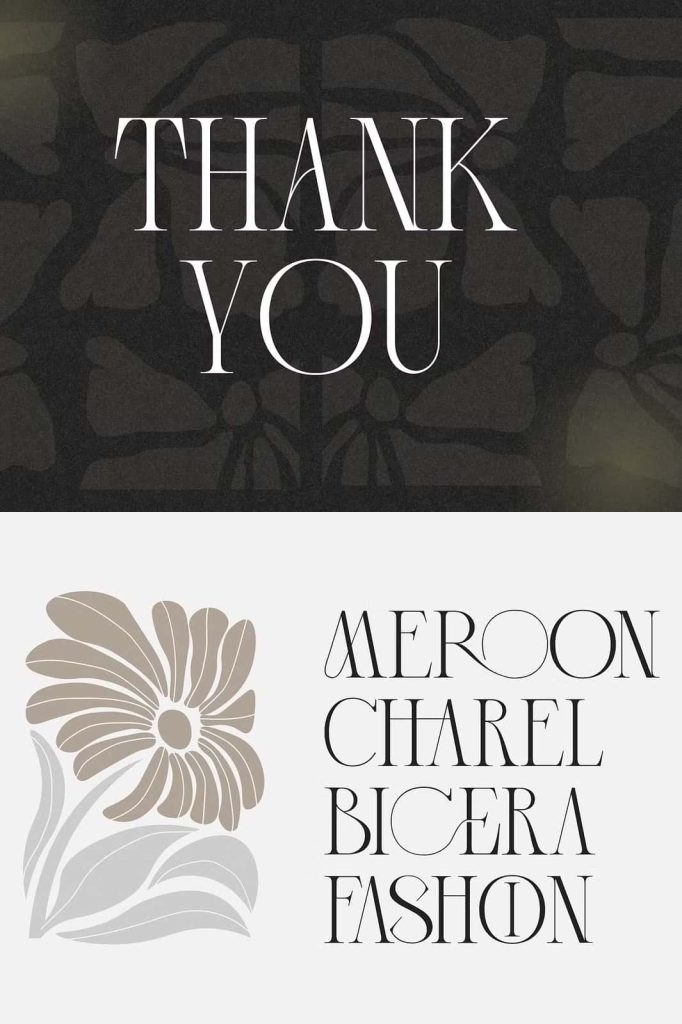
Roabla Font for Harmonious and Versatile Design Projects
Roabla is a thoughtfully crafted typeface designed to deliver beautiful typographic harmony across a wide range of creative applications. With its balanced structure and refined letterforms, Roabla allows designers to create cohesive and visually appealing compositions. Whether you work on branding, digital content, or product design, this font provides the flexibility and clarity needed to produce professional results.
Designed for Typographic Harmony
Roabla stands out because of its ability to create harmony within your designs. Every letter is carefully shaped to maintain consistent proportions, spacing, and flow. This attention to detail ensures that your typography feels balanced and unified, even in complex layouts.
The font’s harmonious design helps you build strong visual structures. It allows text elements to work together naturally, making your compositions easier to read and more aesthetically pleasing.
Balanced and Refined Letterforms
The letterforms in Roabla combine clarity with subtle elegance. Each character features clean lines and well-considered spacing, resulting in a polished and professional appearance. This balance makes the font suitable for both bold headlines and supporting text.
Designers can rely on Roabla to maintain consistency across different design elements, ensuring that every piece of text contributes to a cohesive overall look.
Perfect for Logos and Branding
Roabla provides a strong foundation for logo design and brand identity. Its harmonious structure allows you to create logos that feel stable, modern, and visually appealing. The font communicates professionalism while still offering enough character to make your brand stand out.
You can use Roabla to develop a consistent brand voice across multiple platforms. Its versatility ensures that your identity remains recognizable and effective in different contexts.
Build a Consistent Visual Identity
Consistency is key in branding, and Roabla helps you achieve it effortlessly. Its balanced design works well across logos, packaging, and marketing materials, allowing you to maintain a unified look. This makes it an excellent choice for businesses that want to establish a strong and reliable presence.
Enhance Social Media and Digital Content
In digital environments, clear and engaging typography is essential. Roabla performs exceptionally well in social media graphics, website content, and online campaigns. Its clean structure ensures readability, while its refined style adds a professional touch to your visuals.
You can use it to create posts, banners, and promotional materials that stand out without overwhelming the viewer. The font helps you communicate messages effectively while maintaining a modern aesthetic.
Ideal for Advertisements and Marketing Materials
Roabla adapts easily to advertising and marketing projects. Its balanced design allows you to highlight key messages while keeping the overall layout clean and organized. Whether you design print ads or digital campaigns, this font supports clear communication and strong visual impact.
The font’s versatility ensures that it works well in different formats, from large headlines to smaller descriptive text. This flexibility makes it a valuable tool for designers working on diverse marketing materials.
Support Product and Packaging Design
Roabla also excels in product design and packaging. Its clean and harmonious appearance enhances the presentation of product information, making it easier for customers to engage with your designs. You can use it to create labels, packaging layouts, and branding elements that feel polished and professional.
The font helps products stand out while maintaining a sense of quality and reliability.
Versatile Across Print and Digital Media
Roabla performs consistently across both print and digital platforms. Its clarity ensures readability on screens, while its refined details translate beautifully into printed materials. This adaptability allows you to use the font in a wide range of projects without compromising quality.
From websites and social media to brochures and packaging, Roabla maintains its visual integrity and effectiveness.
Key Features of Roabla Font
- Harmonious and balanced typographic design
- Clean and refined letterforms for professional use
- Ideal for logos, branding, and identity projects
- Perfect for social media, advertising, and marketing
- Versatile for product design and packaging
Create Cohesive and Professional Designs
Roabla font gives you the tools to create designs that feel unified, modern, and visually compelling. Its focus on typographic harmony ensures that every element of your composition works together seamlessly.
If you want a typeface that adapts to different creative needs while maintaining a consistent and polished look, Roabla is an excellent choice. Use it to strengthen your branding, enhance your layouts, and bring clarity and balance into every design you create.